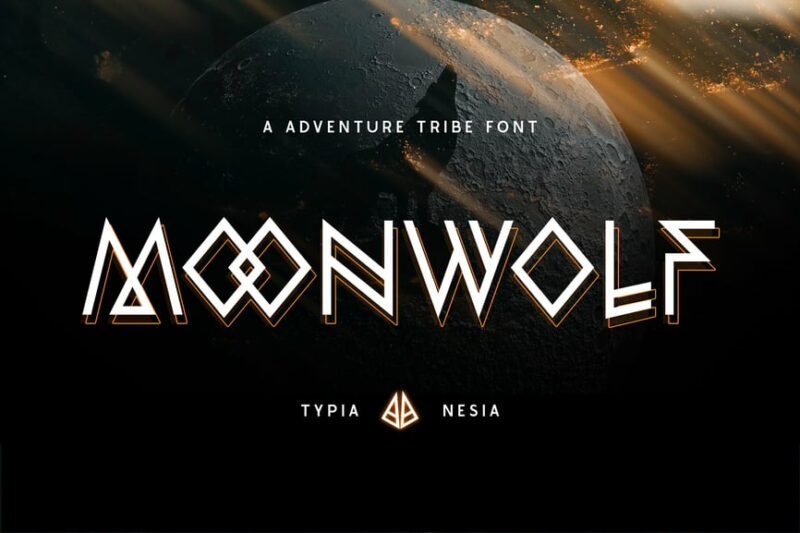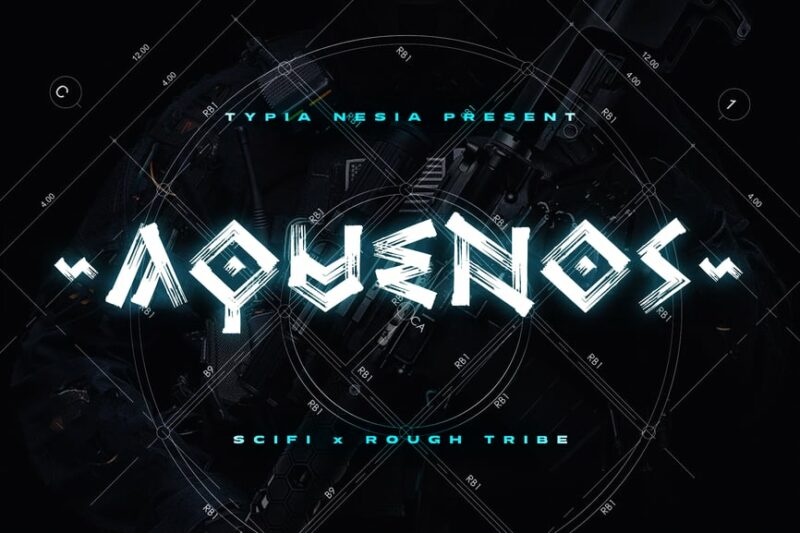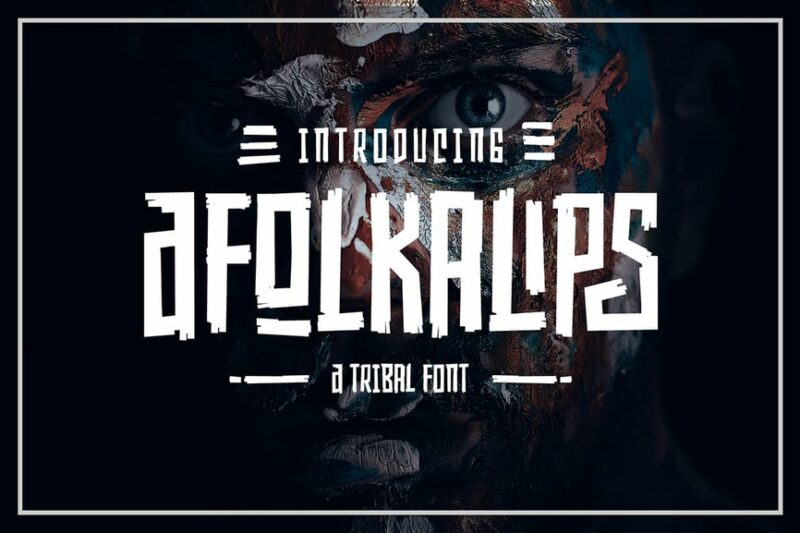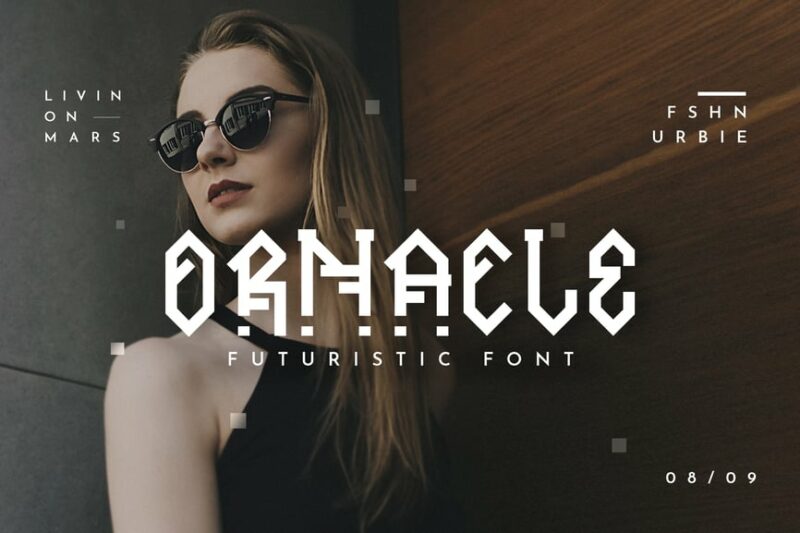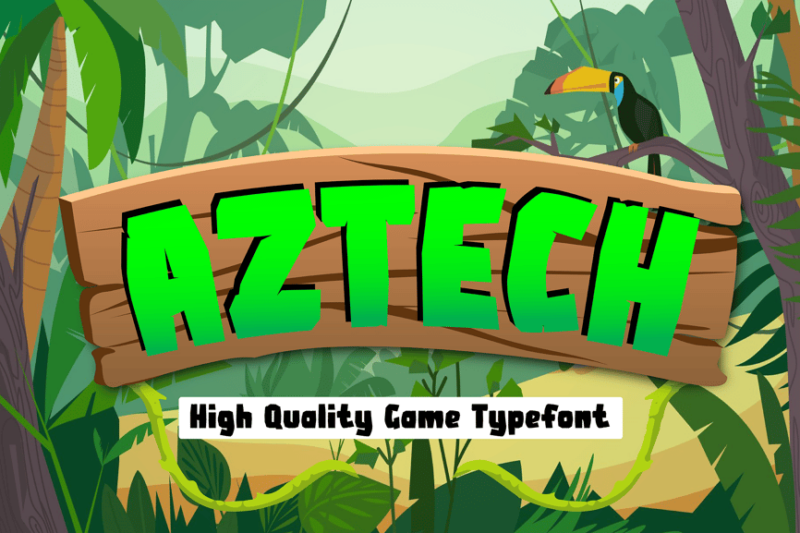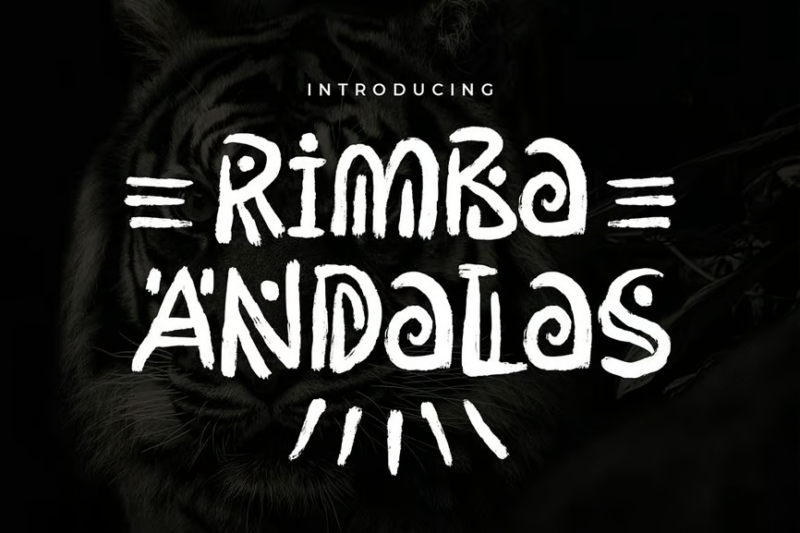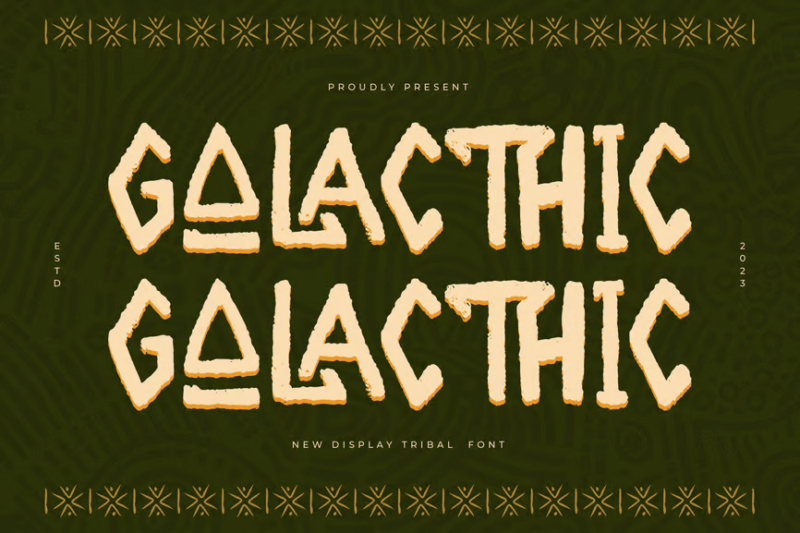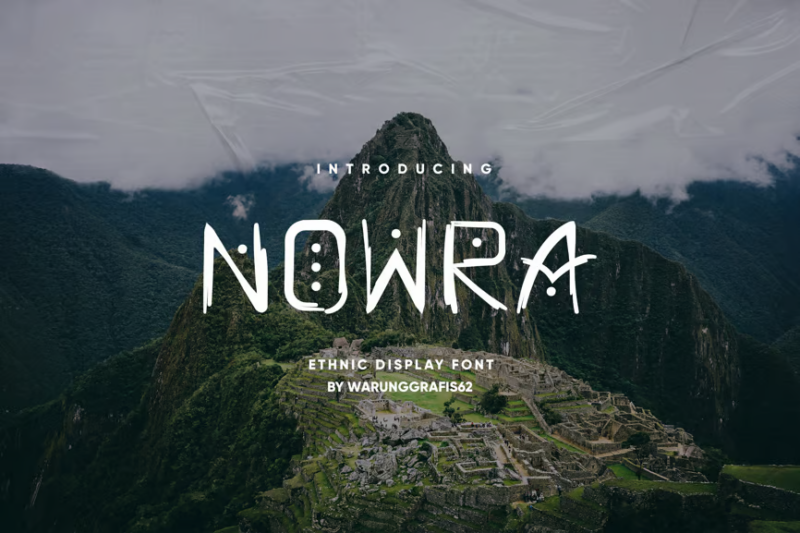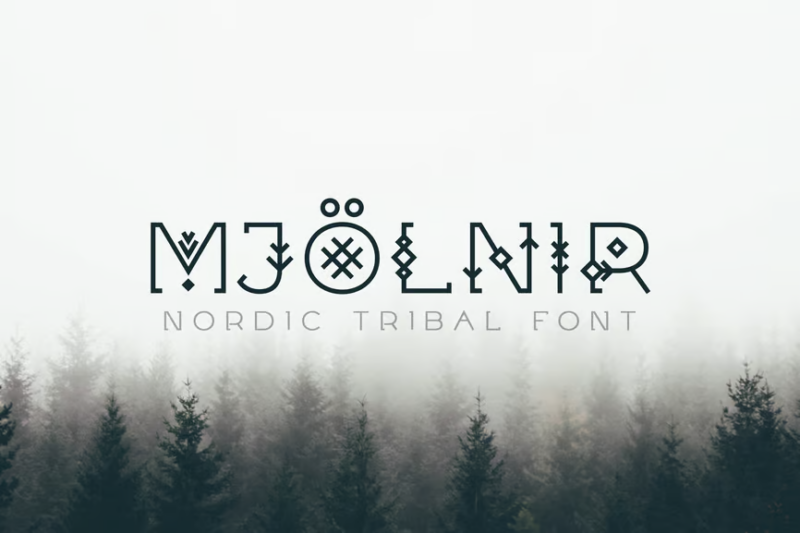
I’m fascinated by the intricate artistry of Aztec design. While creating this guide to Aztec-inspired fonts, I’ve made every effort to approach the subject with respect for the rich historical and cultural significance of Aztec civilization. These Aztec fonts draw inspiration from the beautiful geometric patterns and symbolic elements found in authentic Aztec artifacts, aiming to honor rather than appropriate this remarkable artistic legacy.
In this comprehensive guide, we’ll explore fonts that thoughtfully incorporate elements of Aztec design while maintaining cultural sensitivity. We’ll dive into:
- The key characteristics of authentic Aztec-inspired typography
- How to choose fonts that respectfully represent Aztec design elements
- Best practices for using these fonts in modern contexts
- Excellent alternatives when you need something similar but different
- Common questions about Aztec-inspired typography
Let’s begin our journey through these carefully crafted typefaces.
Most Distinctive Aztec-Inspired Fonts
Moonwolf
![]()
Moonwolf is a striking display sans-serif font that blends modern sci-fi aesthetics with tribal influences. Its unique fusion of futuristic and primitive elements makes it perfect for game titles, posters, and branding projects that require a bold, otherworldly feel.
Aquenos
![]()
Aquenos is a decorative font that combines rough tribal textures with sci-fi inspired forms. This display font is ideal for game logos, album covers, and edgy branding projects that demand a unique blend of primal and futuristic aesthetics.
Afolkalips
![]()
Afolkalips is a symbolic, decorative font that draws inspiration from tribal art and headline typography. Its intricate glyphs and bold forms make it perfect for creating eye-catching logos, posters, and titles with a strong cultural or mystical vibe.
Ornacle
![]()
Ornacle is a versatile futuristic font family that includes script, handwritten, decorative, and sans-serif styles. Its sleek, forward-thinking design is perfect for logos, tech branding, and any project that requires a modern, innovative look.
Aztech
![]()
Aztech is an ethnic-inspired gaming font that brings a unique cultural flair to digital projects. Its sans-serif design with distinctive tribal elements makes it ideal for game interfaces, esports branding, and culturally-themed digital content.
Rimba Andalas
![]()
Rimba Andalas is a decorative font that combines symbols with script and handwritten styles. Its tribal and native-inspired design makes it perfect for creating authentic, nature-themed branding, packaging, and editorial designs with a touch of exoticism.
Galacthic
![]()
Galacthic is a new display tribal font that merges sans-serif functionality with decorative tribal elements. Its unique blend of modern and primitive aesthetics makes it an excellent choice for branding projects, album covers, and fashion designs that require a distinctive edge.
Nowra
![]()
Nowra is an ethnic display font that celebrates cultural and tribal aesthetics. Its decorative style and intricate details make it perfect for creating striking headlines, logos, and branding materials for projects that aim to convey a strong sense of heritage and tradition.
Mjölnir
![]()
Mjölnir is a Nordic tribal font that draws inspiration from ancient Norse mythology and runic scripts. This decorative typeface is ideal for creating powerful logos, book covers, and branding materials related to Viking themes, fantasy genres, or Nordic-inspired designs.
Mogicz
![]()
Mogicz is an old serif display font that combines vintage charm with a touch of circus-inspired whimsy. Its decorative style makes it perfect for creating eye-catching headlines, posters, and branding materials for projects that require a nostalgic or playful feel.
Arlo
![]()
Arlo is a puzzle display font that creates a unique mosaic-like effect. Its decorative nature and interlocking shapes make it ideal for creating captivating logos, game titles, and artistic designs that require a sense of complexity and visual intrigue.
MOJITA
![]()
MOJITA is a sans-serif font with a decorative flair, perfect for fashion and editorial designs. Its sleek lines and modern aesthetic make it ideal for creating sophisticated headlines, magazine layouts, and high-end branding materials.
Azteker
![]()
Azteker is an ancient-inspired fantastic font that blends historical elements with a modern sans-serif approach. Its unique design makes it perfect for fashion branding, book covers, and projects that require a fusion of contemporary and ancient aesthetics.
Remember, typography is more than just aesthetics – it’s a powerful tool for cultural expression and appreciation. By approaching Aztec-inspired fonts with knowledge and respect, we can create designs that pay proper tribute to this remarkable heritage while avoiding cultural insensitivity.